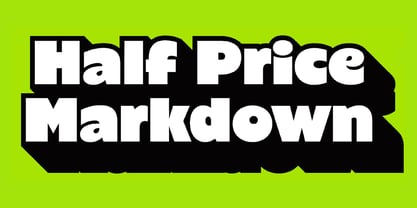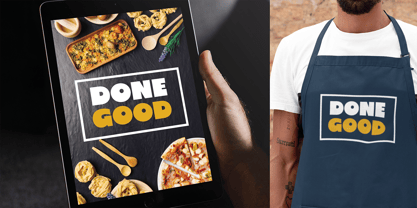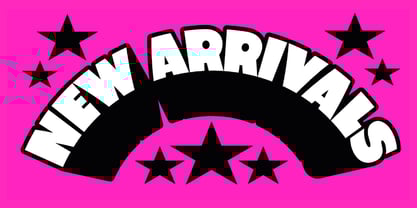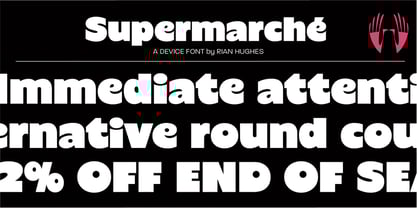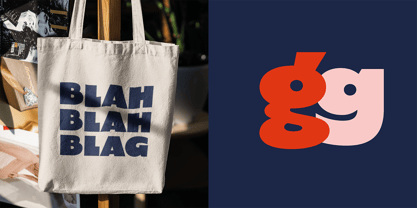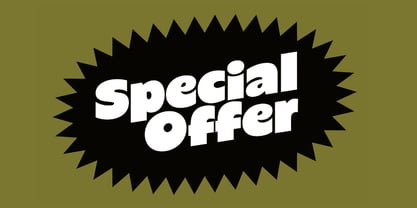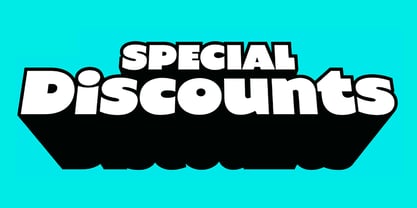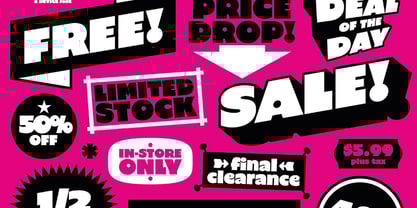
Supermarché
by Device
The Supermarché Font Family was designed by Rian Hughes and published by Device. Supermarché contains 2 styles and family package options.
Supermarché owes an inspirational debt to that outlier of the Gill Sans family, Gill Kayo. Added in 1936, many of its letterforms depart considerably from the original Gill Sans in order to accomodate the extra weight. Gill himself, it is said, thought of the design as something of a joke, and Robert Harling in an article in the 1937 Penrose Annual opines that “Kayo is a dismal type... typographical historians of 2000AD will find this odd outburst in Mr Gill’s career, and will spend much time attempting to track down his sad psychological state during 1936.” However, Gill Kayo became very popular during the 1970s and 1980s when its eccentricities chimed with the times.
Supermarché revels in the eccentricities of the super-bold sans, while all the while trying to apply the modicum of logic and consistency a modern font requires. The upright strokes come in two widths, seen to best effect in the H and n; the curved bottom strokes of the S, g and y are emboldened, and the oversized dots on the i and j push the top of the supporting strokes down to accommodate them. The Alternates feature circular counters and punctuation, and a cursive style lower-case g.
Its robust shapes are particularly suited to shadows and distortions. Fun, unpretentious and impactful.